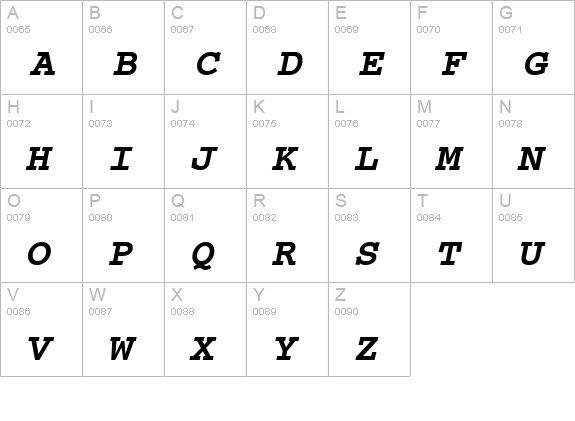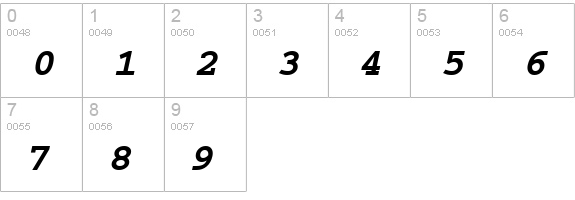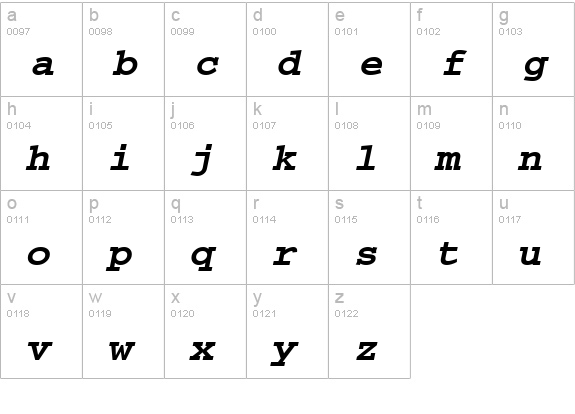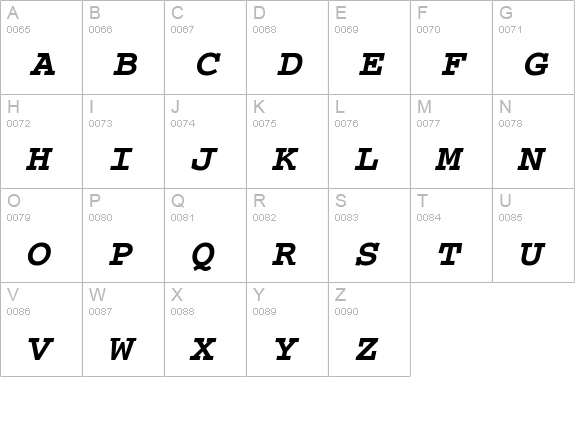
CourierPS Bold Oblique Font Details
CourierPS Bold Oblique is a strong, high-contrast, italic variant in the CourierPS typeface family \xE2\x80\x94 well suited to headlines, attention-grabbing titles, and strong calls-to-action.
CourierPS Bold Oblique font is a versatile and professional typeface that exudes confidence and authority. Its bold weight and slanted italic style make it perfect for adding emphasis and impact to your designs. Whether you're working on a project that requires a strong and bold look or need a font that commands attention, CourierPS Bold Oblique has got you covered. And the best part? This exceptional font is available for free download at FontsMarket.com. Get your hands on this high-quality typeface without any cost and elevate your designs with its bold and dynamic presence. Download CourierPS Bold Oblique today and experience the power of typography at your fingertips.